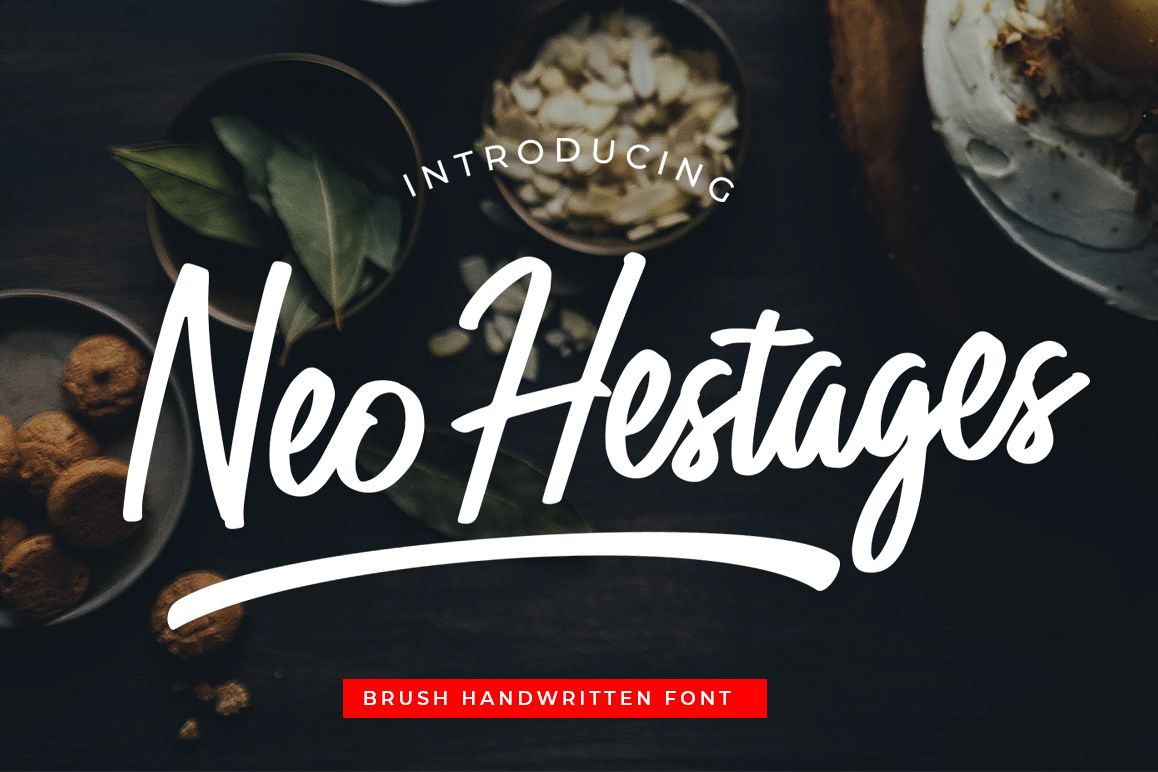
Neo Hestages
in this time many people like hand lettering and calligraphy but they can't do it, with this font you can make it easily and quickly.
Now let us introduce you our new font called "Neo Hestages Brush Handwritten Font".
Neo Hestages is a handwritten brush script font with a clear style and good flow This font is great for your next creative project such as Logotype, printed quotes, invitations, cards, product packaging, headers, Letterhead, Poster, Apparel Design, Label, and etc.
• Basic Latin A-Z and a-z
• Symbols
• Opentype Feature